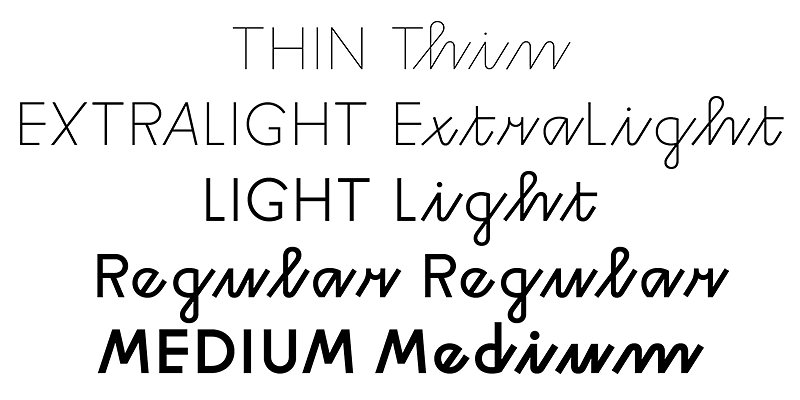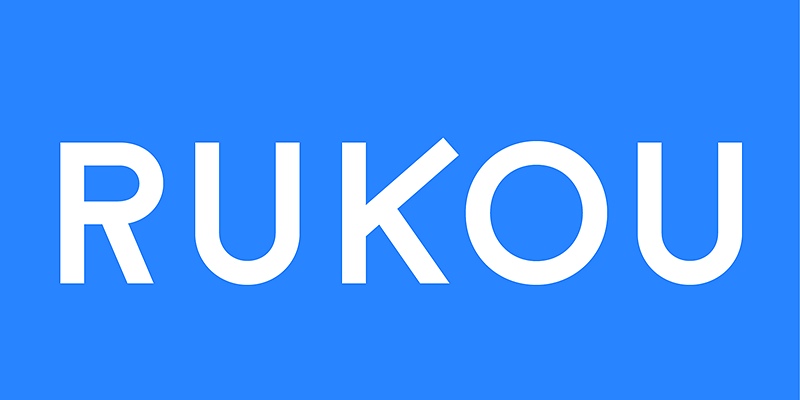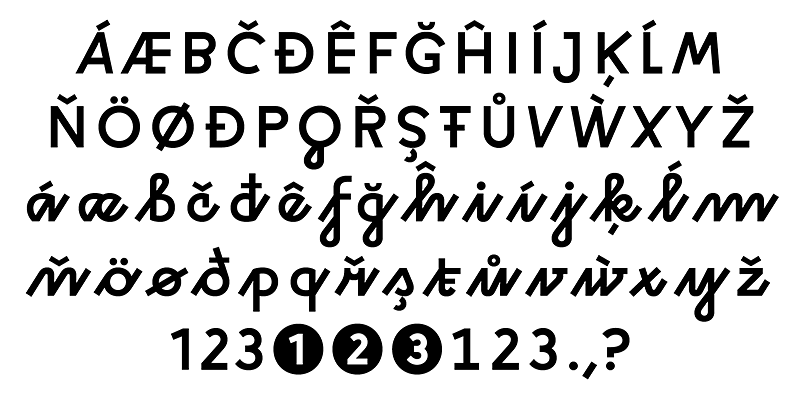
Rukou typeface originated as a logo for a fashion designer. The idea was to make a fusion of a geometric typeface with the flavour of childish features. Rukou was inspired by school hand-writing models, but adds very specific and interesting features to it. Rather than focusing on readability, the primary goal was to have a unique type texture. This is the reason why lowercase is disconnected. The disconnected letters opened the possibility to create the special shapes for individual letters.
The typefaces consist of two different styles inside one font. You can choose to set your titles in uppercase, or titlecase/lowercase. As each style has a slightly different texture, there is the opportunity to combine them in interesting ways. The uppercase can even be set in small paragraphs.